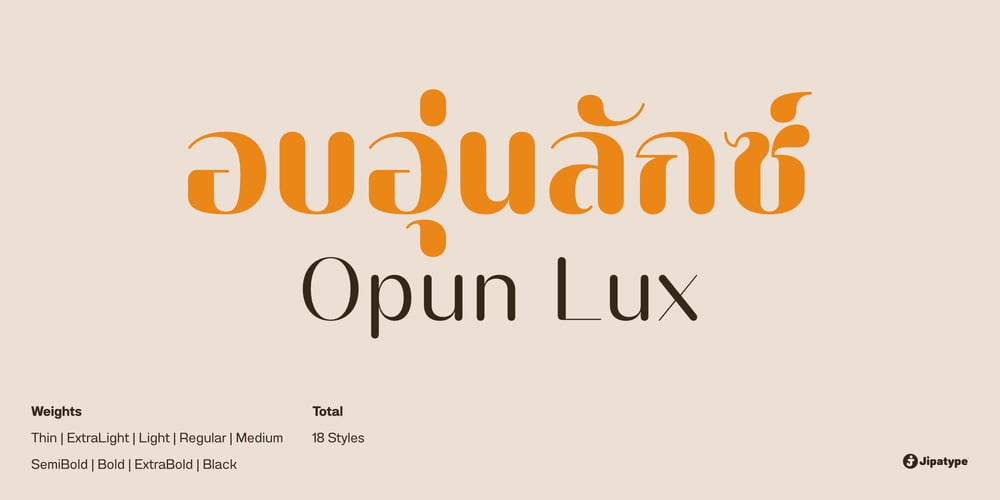
Opun Lux Font Family was designed by Anupap Jaichumnan and published by Jipatype. Opun Lux contains 18 styles and family package options. Opun Lux is a sans serif font characterized by rounded line ends and a contrast between the thickness of horizontal and vertical lines. Its appearance exudes elegance, beauty, and delicacy, while also imparting a sense of friendliness and warmth. Available in 18 styles ranging from thin to black, this font supports both Latin-1 and Thai characters. It is ideal for various publications, both online and offline, that emphasize beauty and youthfulness, making it perfect for media related to beauty clinics or cosmetics.